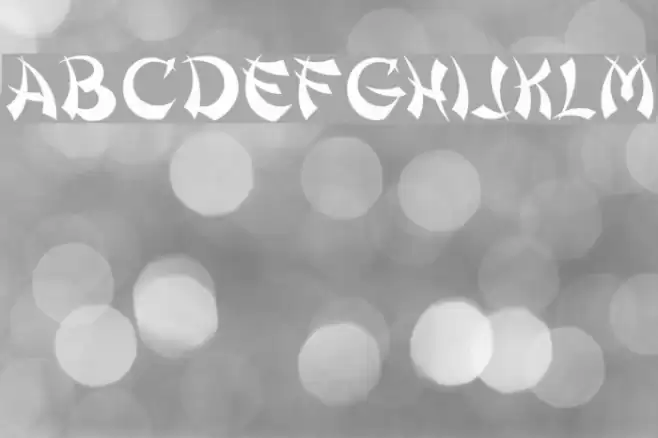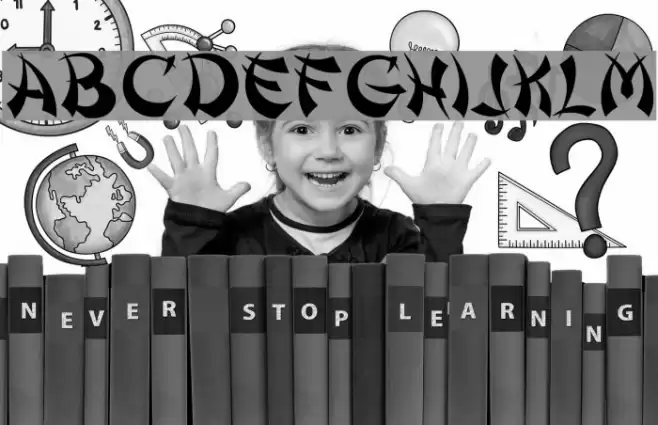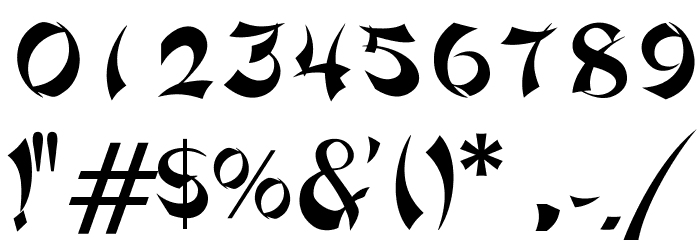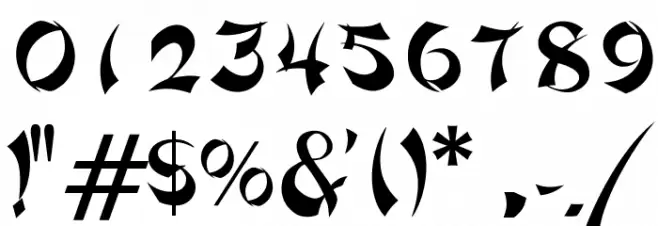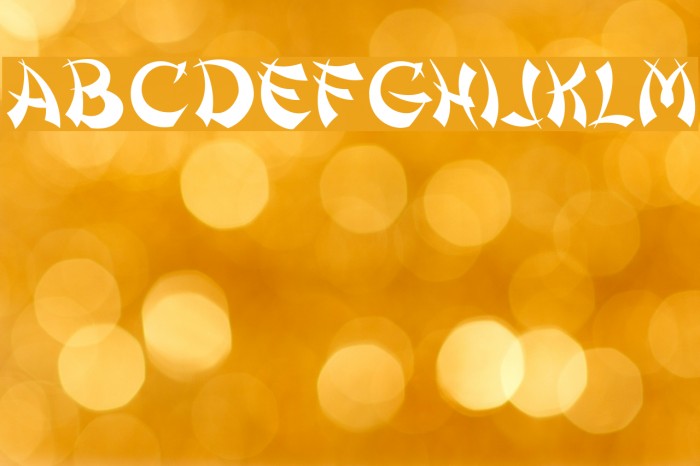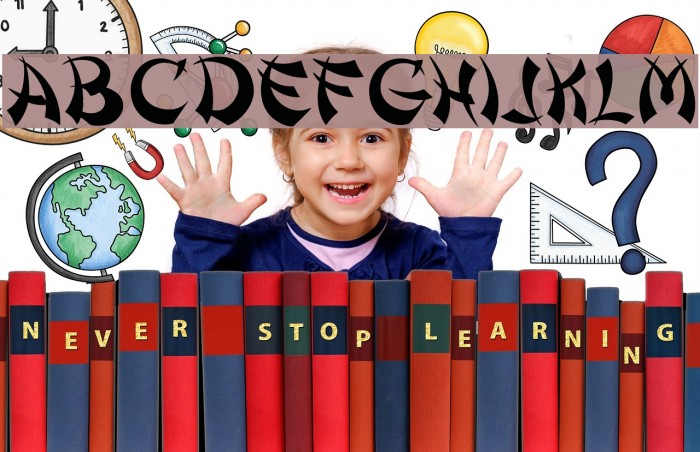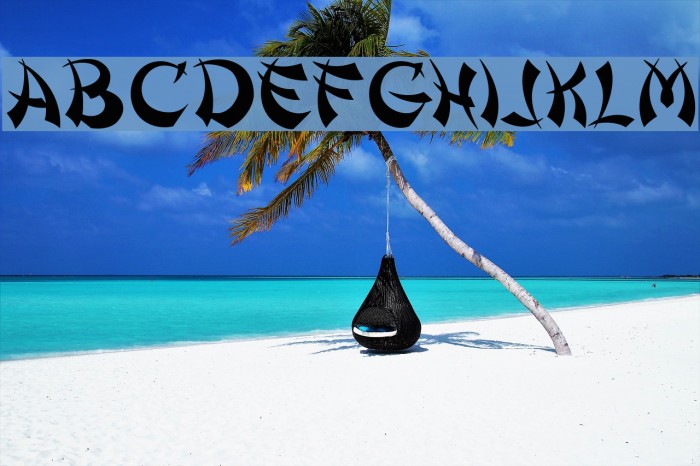
OPTIShanghai Font
OPTIShanghai Description
This font features a bold and dynamic style with sharp, angular edges and a distinct, edgy appearance. The characters are designed with a high level of contrast, showcasing thick strokes that taper into fine points. The overall look is reminiscent of traditional Asian calligraphy, yet it maintains a modern twist with its aggressive and striking form. The uppercase letters are particularly dramatic, with intricate details that give each character a unique flair. The numbers and special characters follow suit, maintaining the same bold and expressive style. This font is ideal for projects that require a strong visual impact and a touch of cultural influence.
A bold, angular font with high contrast and an edgy, calligraphic style from Uncategorized fonts.
- Overall Style: Modern, Decorative